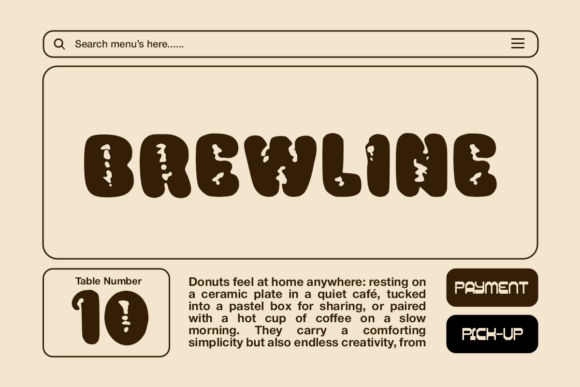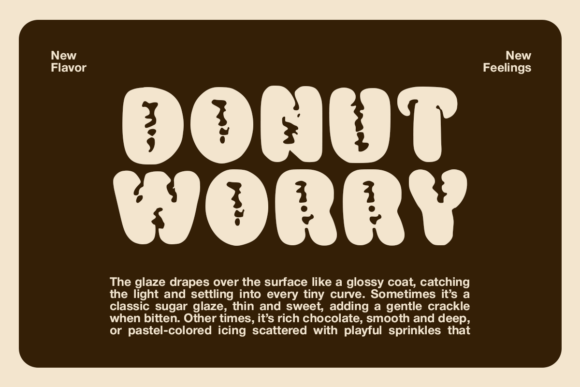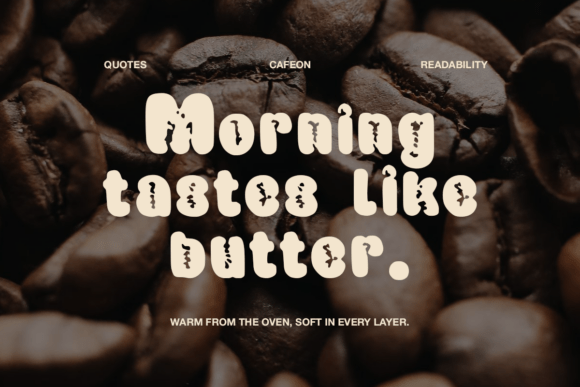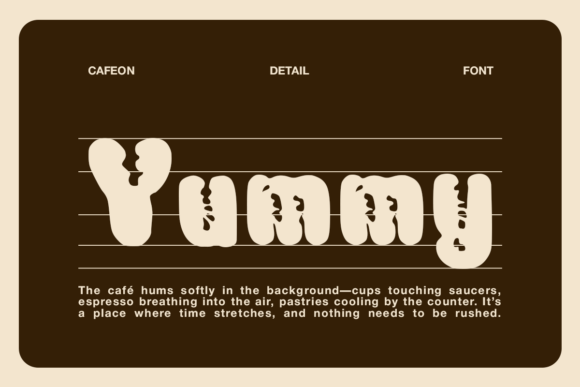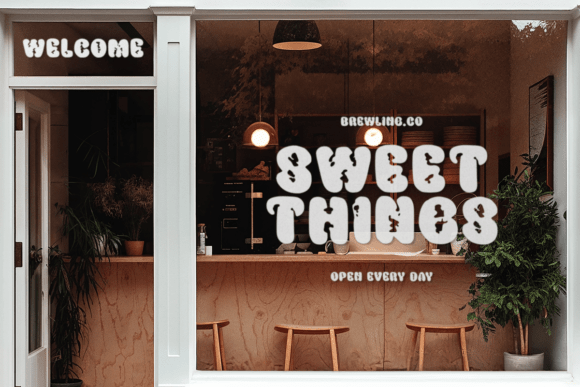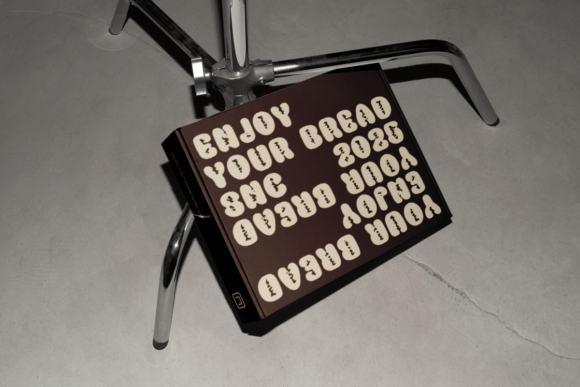
Introduction to Cafeon Font
Cafeon is a warm and playful display font inspired by cozy coffee shops, artisan cafés, and handmade menu aesthetics.
Its chunky rounded letterforms and soft curves create a friendly, inviting atmosphere that instantly feels approachable and delicious Cafeon brings a relaxed yet bold personality, making your typography look charming, cheerful, and full of character.